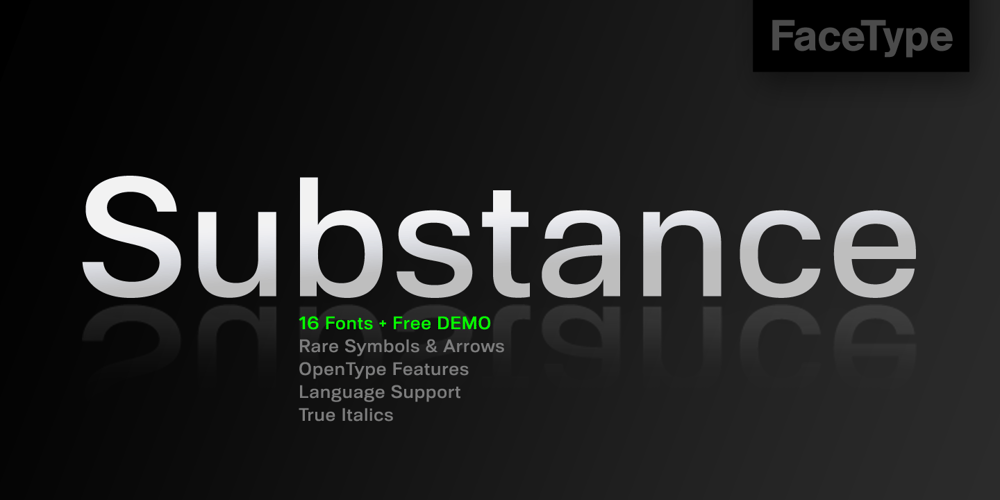
Substance Font Family was designed by Marcus Sterz and published by FaceType. Substance contains 17 styles and family package options. The grotesque workhorse: Substance fulfills the primary role of emphasizing content. Containing 8 weights + italics (800+ glyphs each) Substance is a workhorse with loads of subtle OpenType features (small caps, a choice of lining, tabular and old style figures, numerators, denominators, tabular figures and signs, fractions, ligatures), 21 currency signs and a diversity of symbols and arrows. Substance provides everything you need for demanding briefs like signage or corporate design.